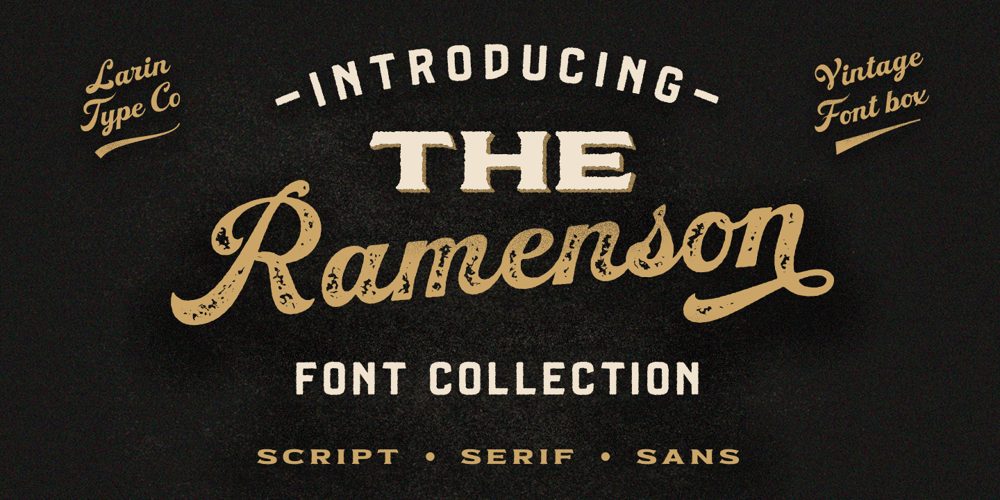
Ramenson
Ramenson font
Ramenson Font Family was designed by Pavel Larin and published by Larin Type Co. Ramenson contains 15 styles and family package options. Ramenson is a vintage collection of fonts that includes serif, script, and sans serif, each of them has five styles – Clean, Rough, Pressed, Shadow, Rough Shadow. Also for the script includes Alternates and Swashes. This collection was inspired by vintage signage, beer labels, logos, scout patch. These fonts are perfectly suitable for any vintage project and will make it at a high level. This font is easy to use has OpenType features.